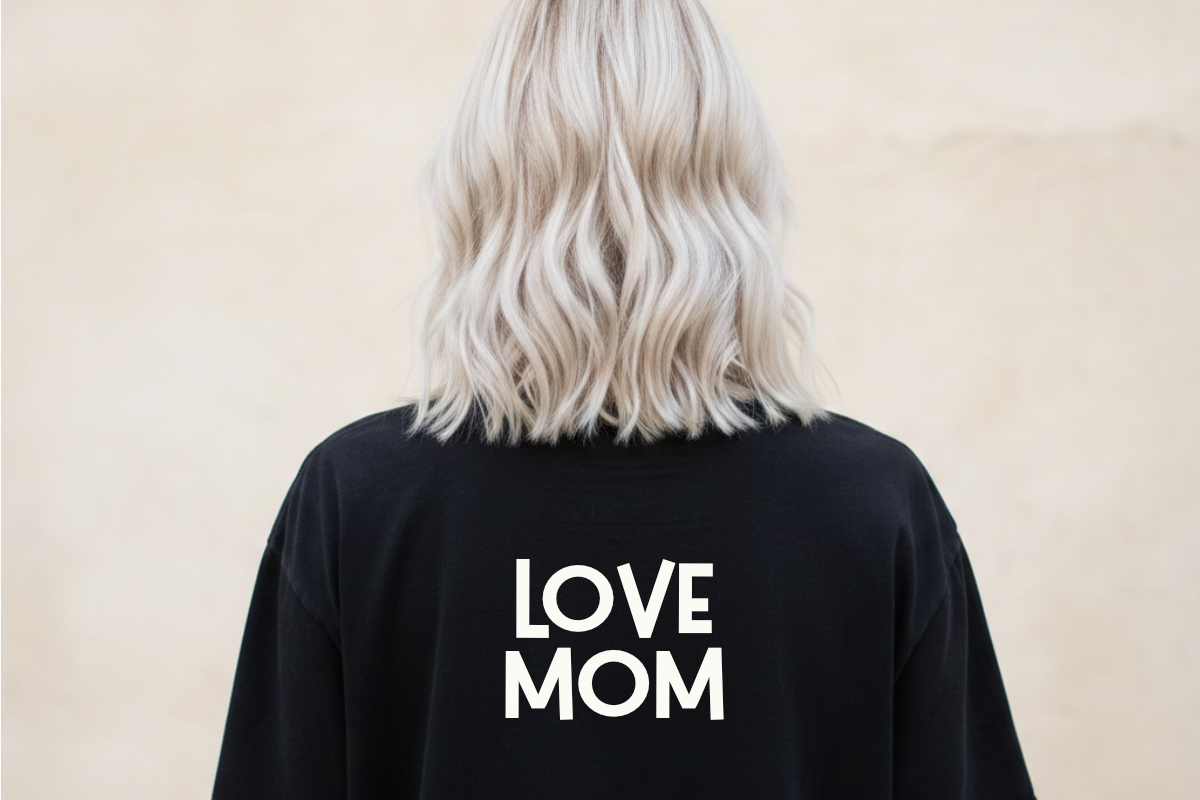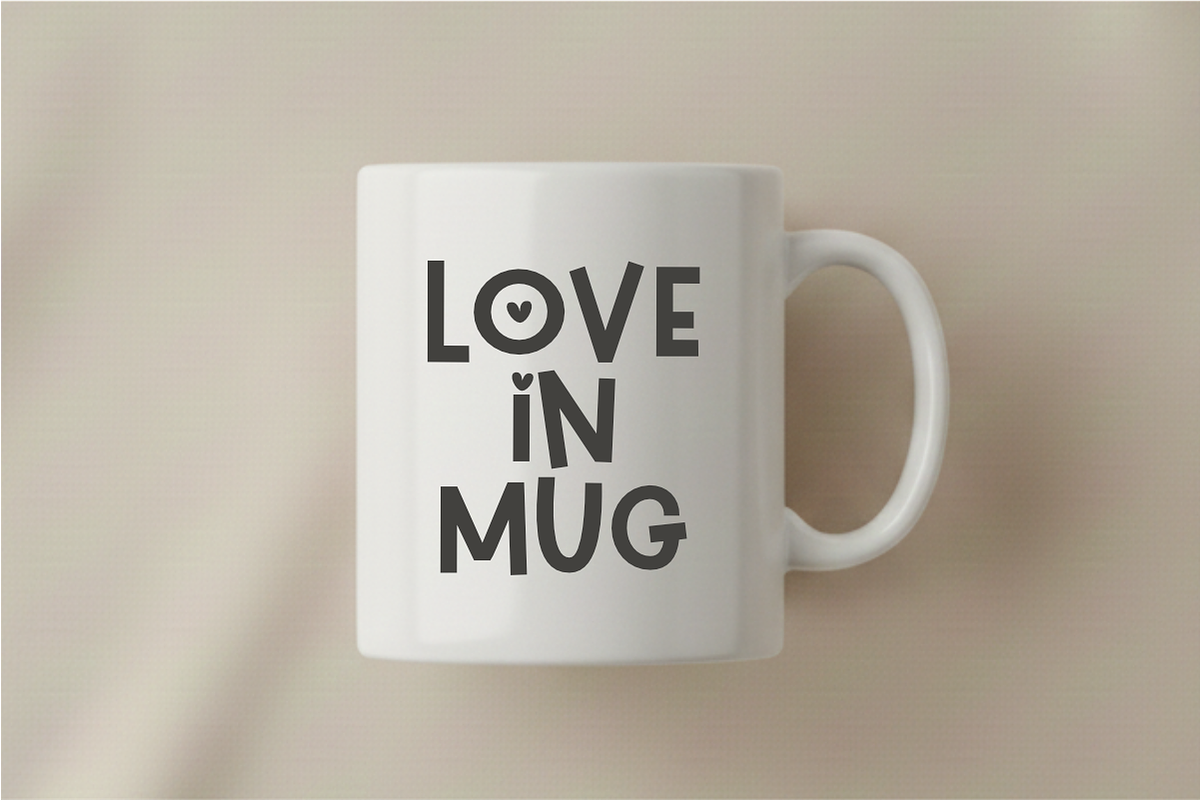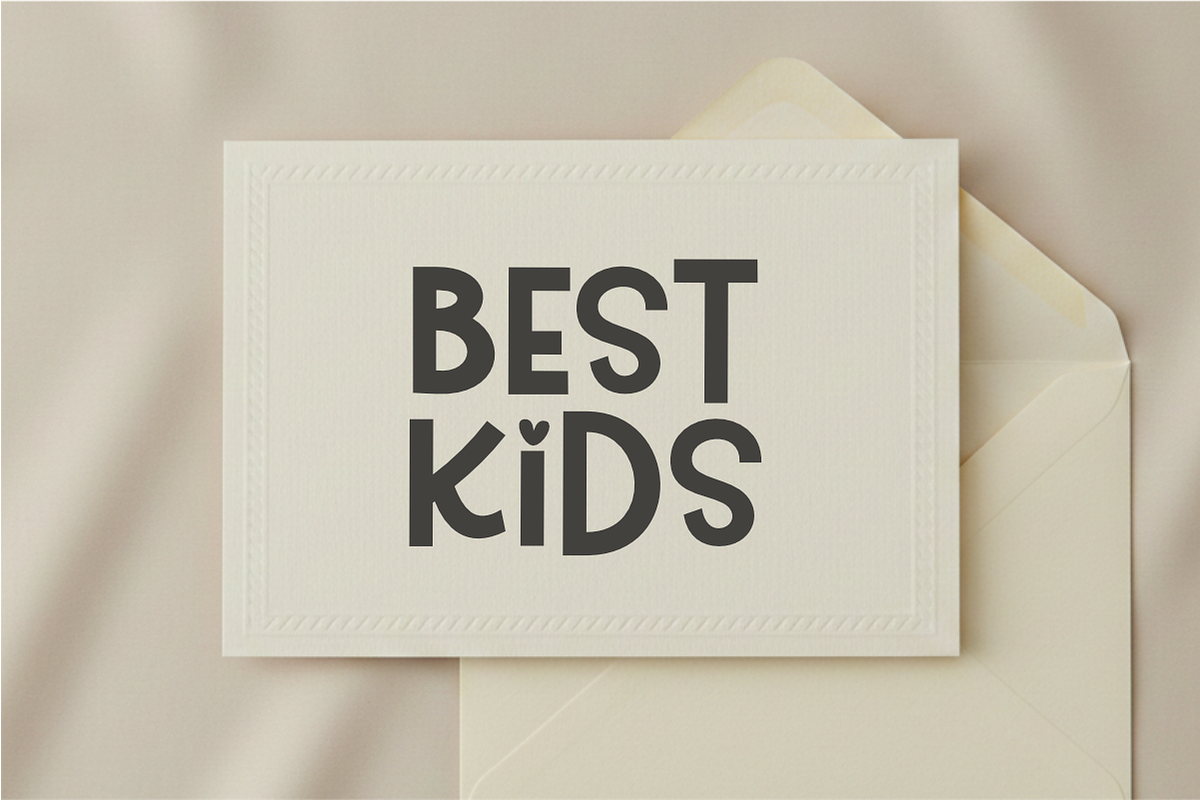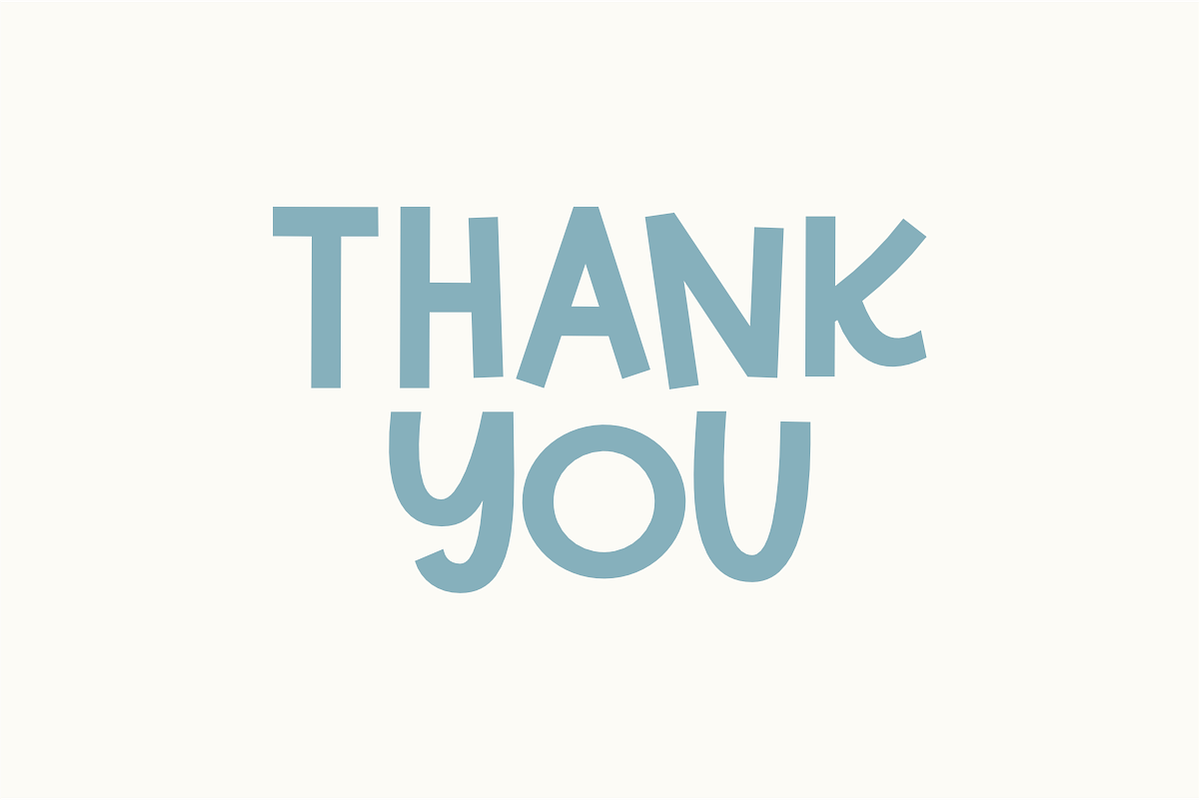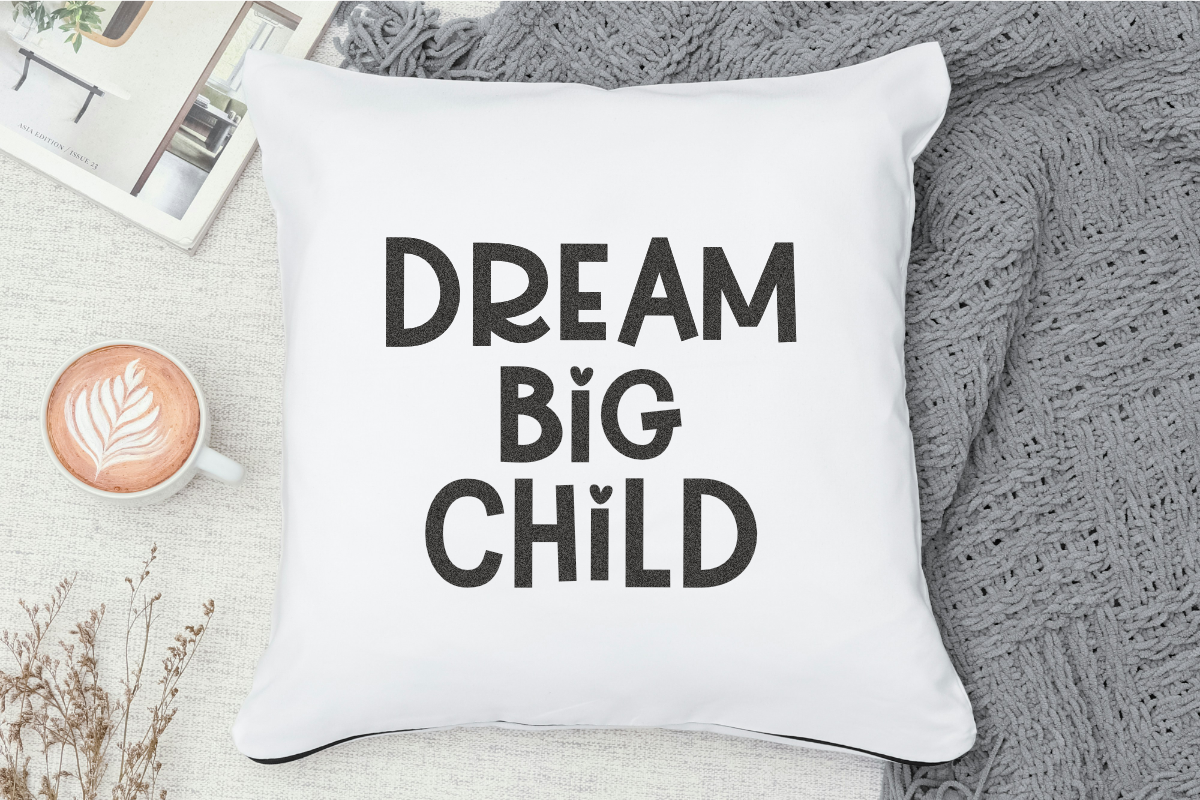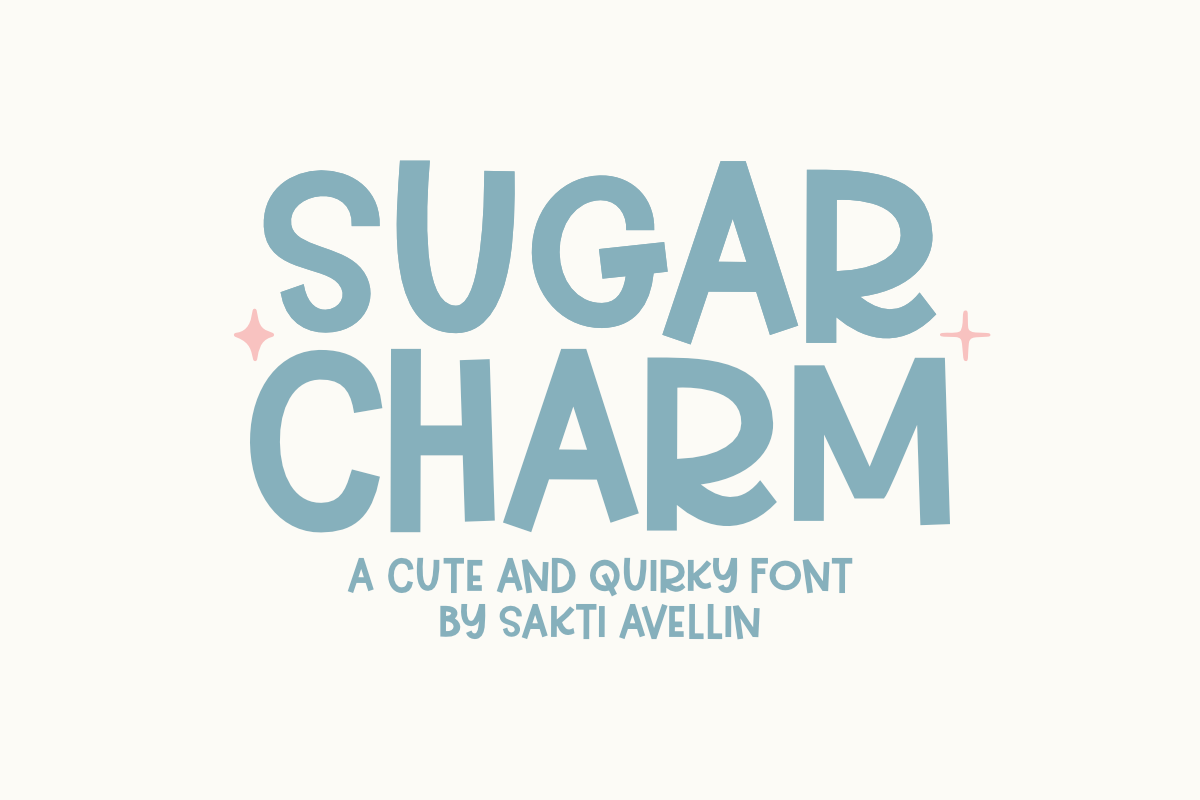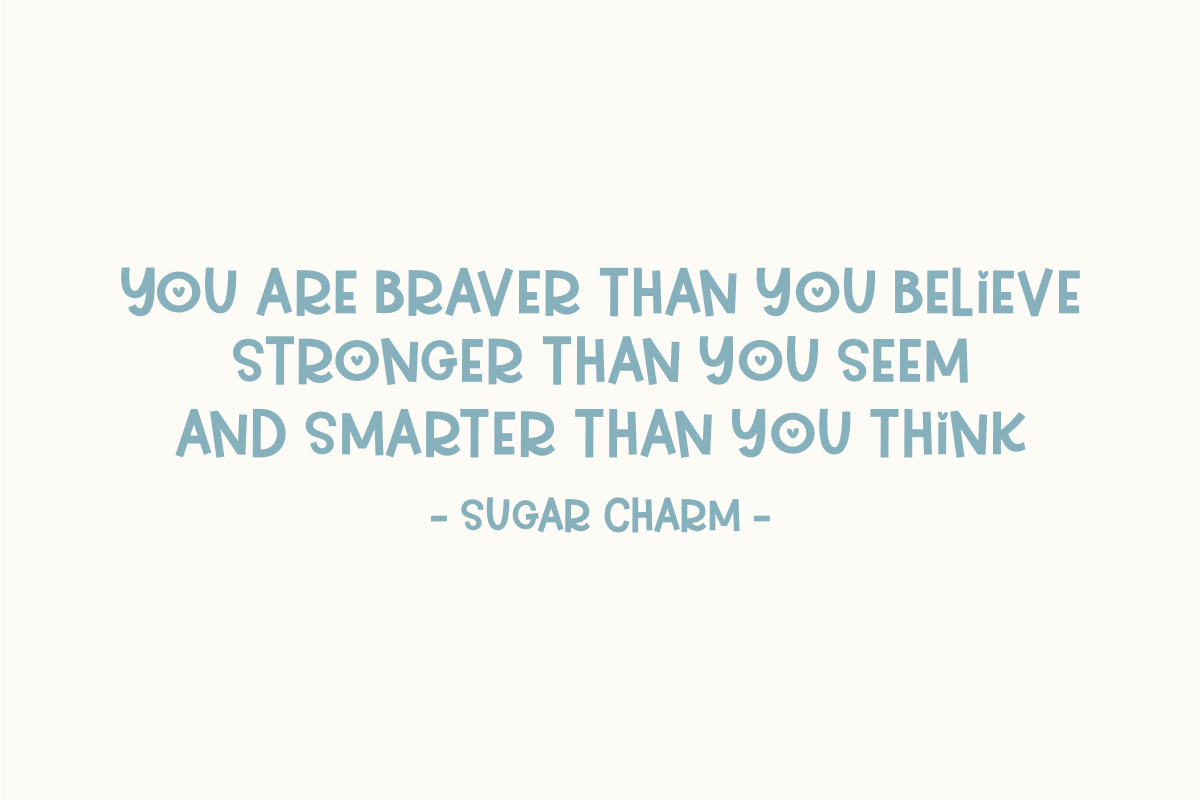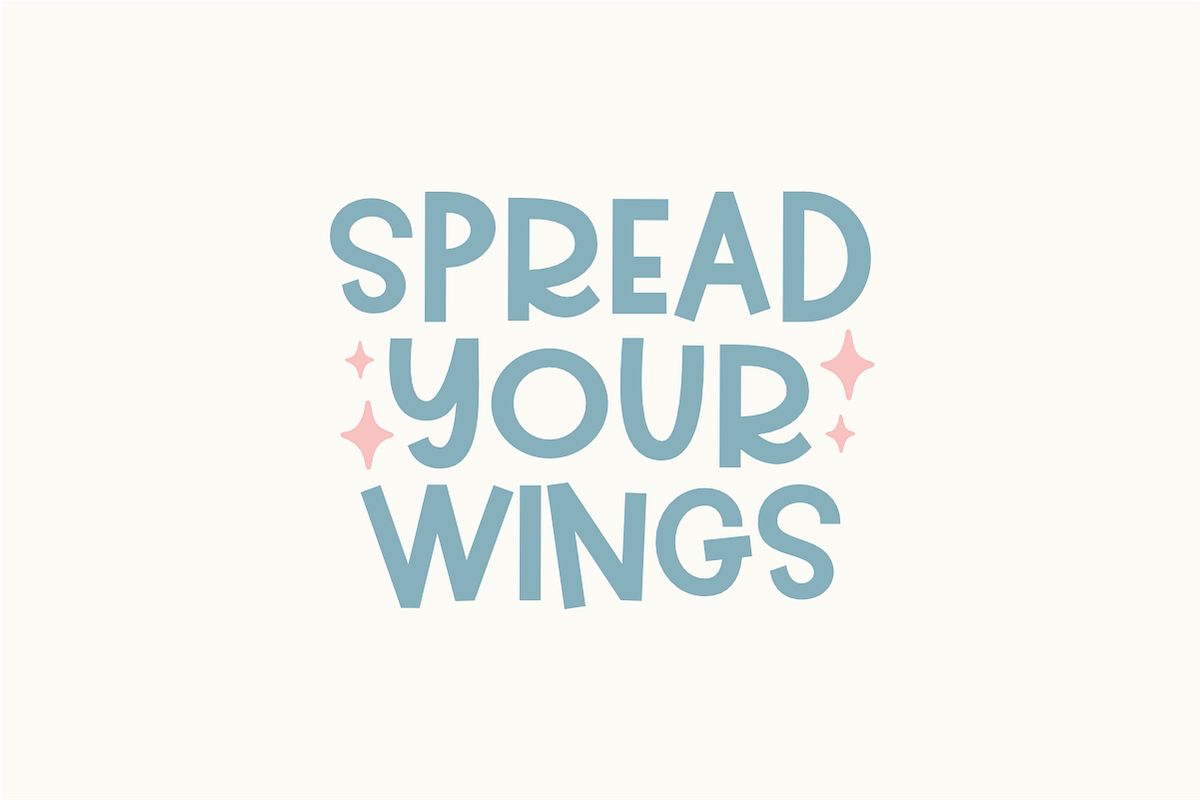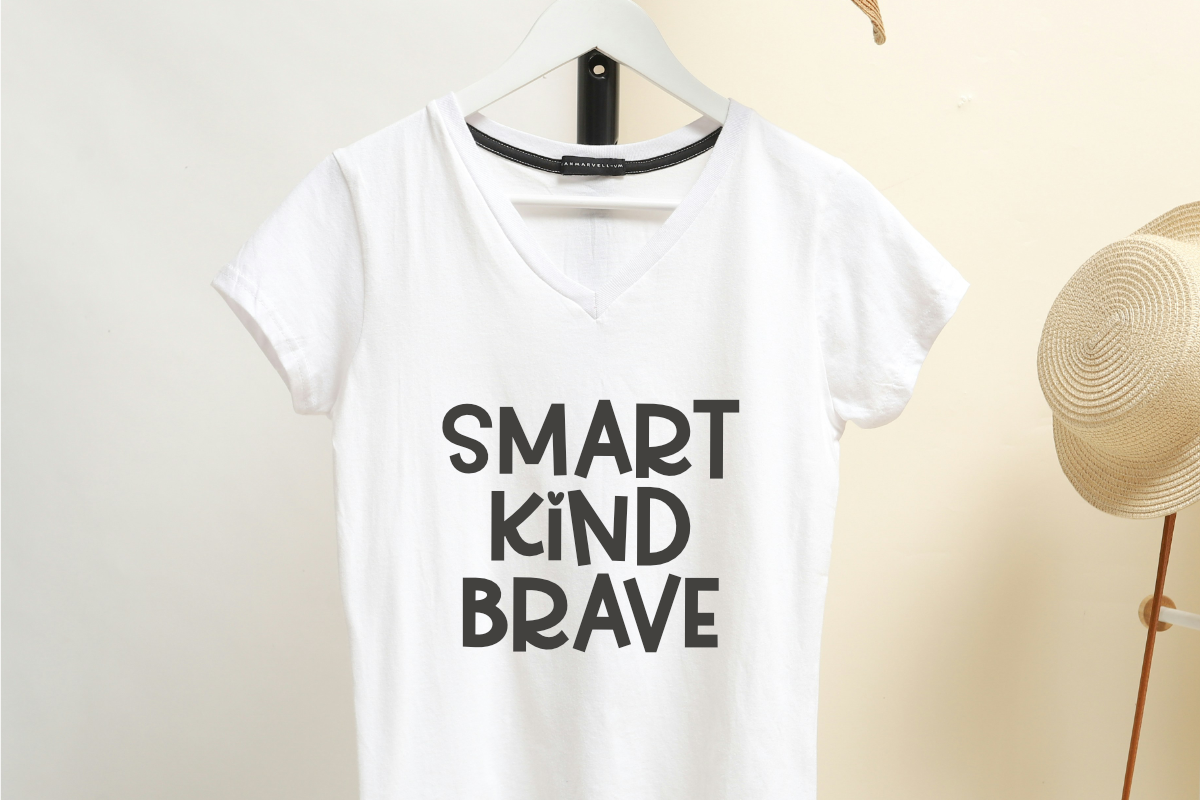
Sugar Charm - Cute Quirky Font
Sugar Charm is a delightful and playful display font designed to bring a touch of sweetness and joy to your creative projects. This hand-drawn typeface features soft, rounded letterforms and a whimsical silhouette, making it an ideal choice for cute branding, kids' packaging, nursery decor, and cheerful social media graphics. Its organic and friendly aesthetic ensures your headlines stand out with a warm, handcrafted charm. Whether you are designing for stickers, summer apparel, or sweet greeting cards, Sugar Charm adds a lovely and creative energy to every piece of work, perfect for designers looking for a modern yet nostalgic "bubbly" vibe.